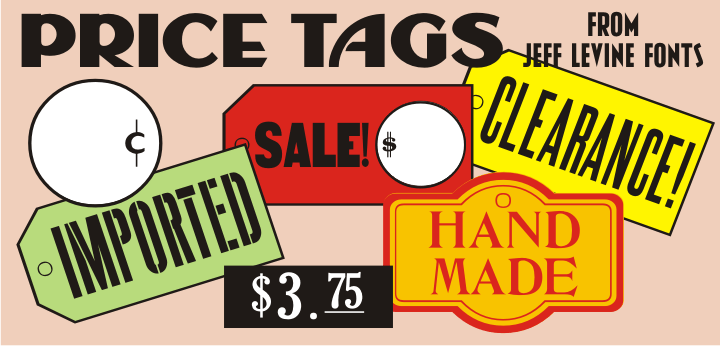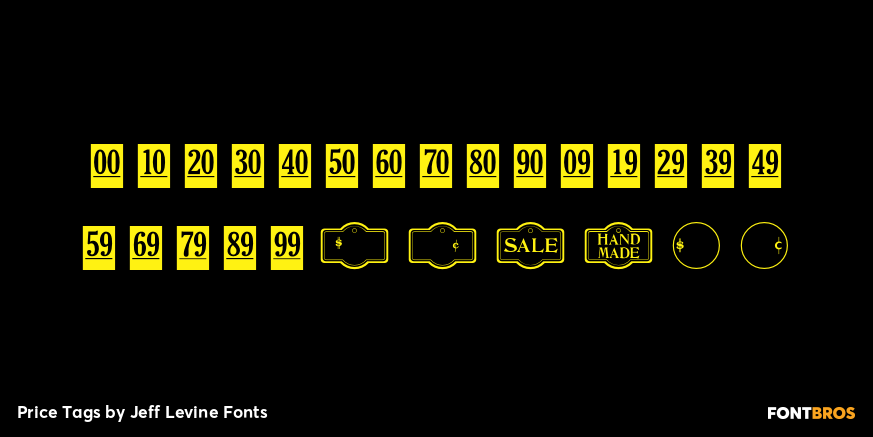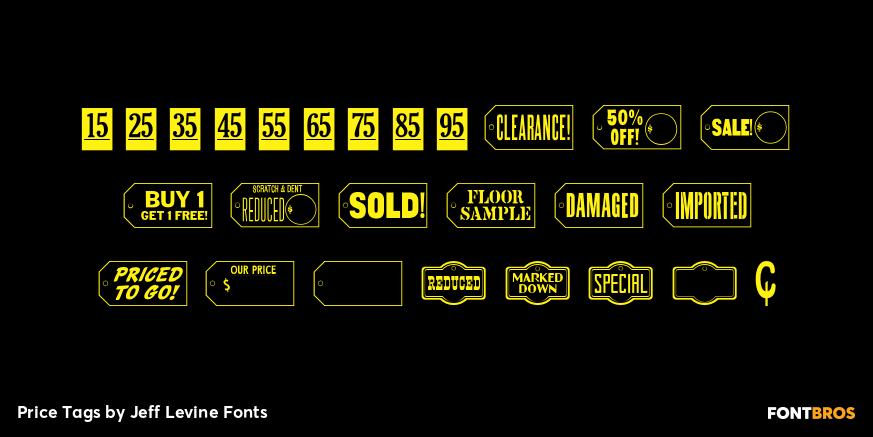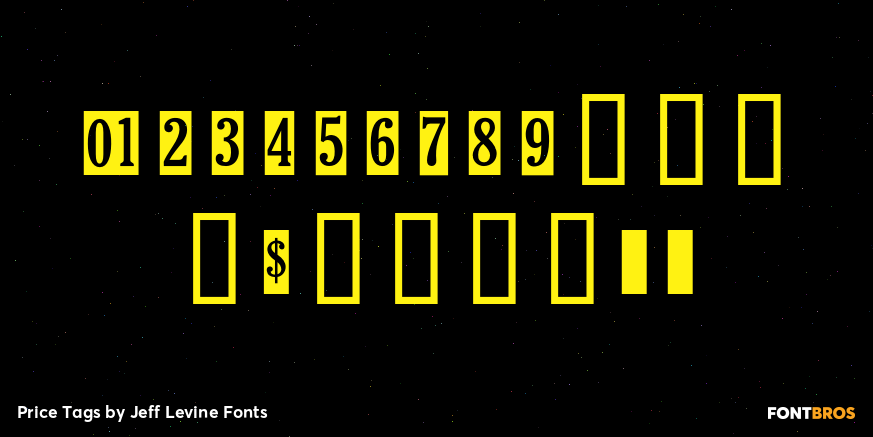
Price Tags
Price Tags JNL is a multi-use dingbat font. Along with over twenty nostalgic price tags, there is a set of individual numbers [1 thru 0 keys] and number pairs [A-T and a-i keys] for creating old-style white-on-black price tags.
Blank end caps are available on the parenthesis keys, the decimal point is on the period key, catch words FOR, DOZEN and EACH are on the left and right arrows and right brace respectively, and the dollars and cents marks are on the dollar and hyphen keys.
You'll even find a few extras placed upon the bracket and left brace keys.